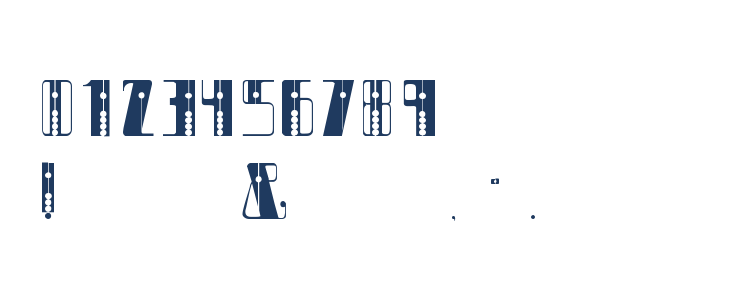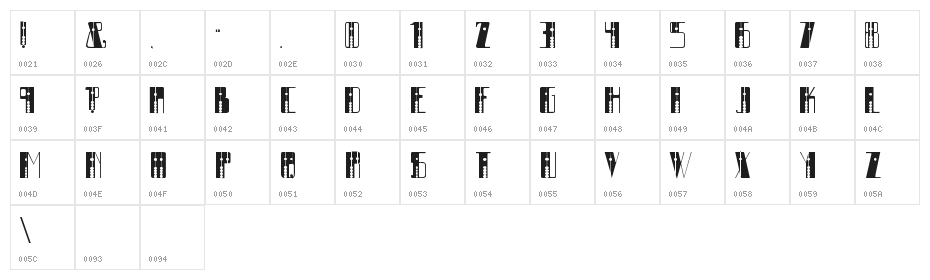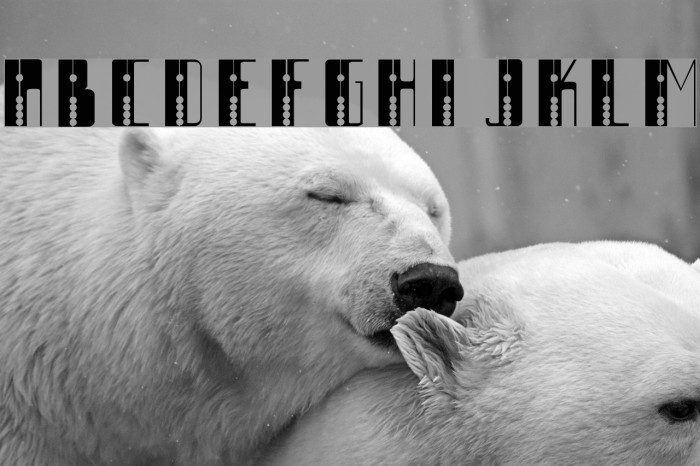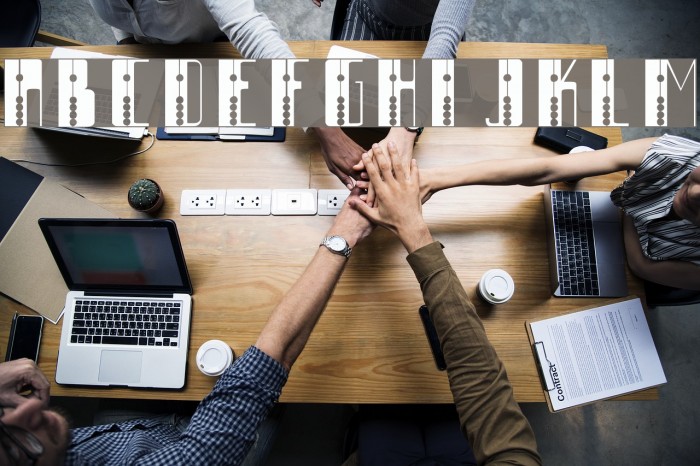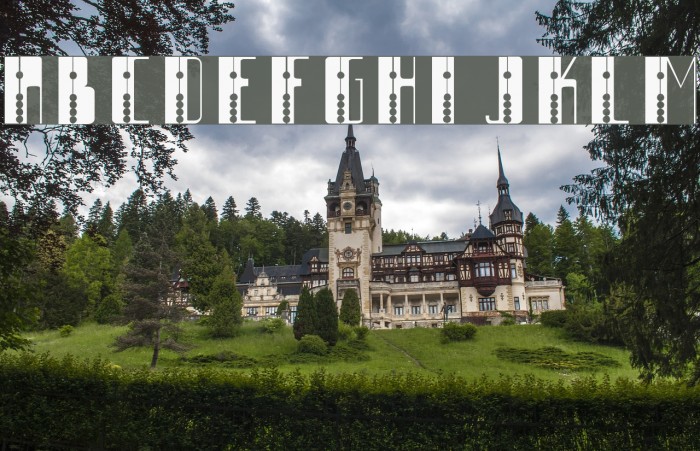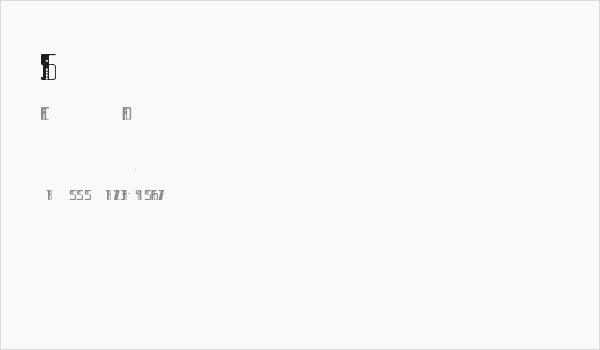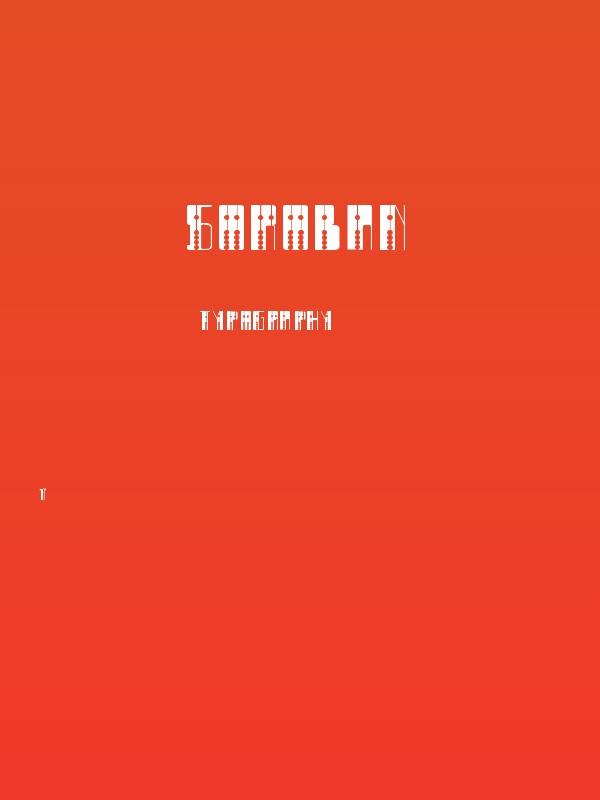
Soroban Font
Soroban Description
This font features a unique and innovative design inspired by the traditional Japanese abacus, known as the soroban. Each character is crafted with a combination of bold, geometric shapes and dotted elements that mimic the beads of an abacus. The uppercase letters are particularly striking, with a mix of solid and outlined forms that create a dynamic visual rhythm. The numerals are similarly styled, maintaining the theme with a consistent use of dots and lines. The special characters, such as the ampersand and exclamation mark, are designed with the same attention to detail, ensuring a cohesive look across all symbols. This font stands out for its creative approach and cultural reference, making it a distinctive choice for projects that require a touch of originality and cultural flair.
| Proposed Projects | Ideal for educational materials, cultural event posters, or innovative branding projects. |